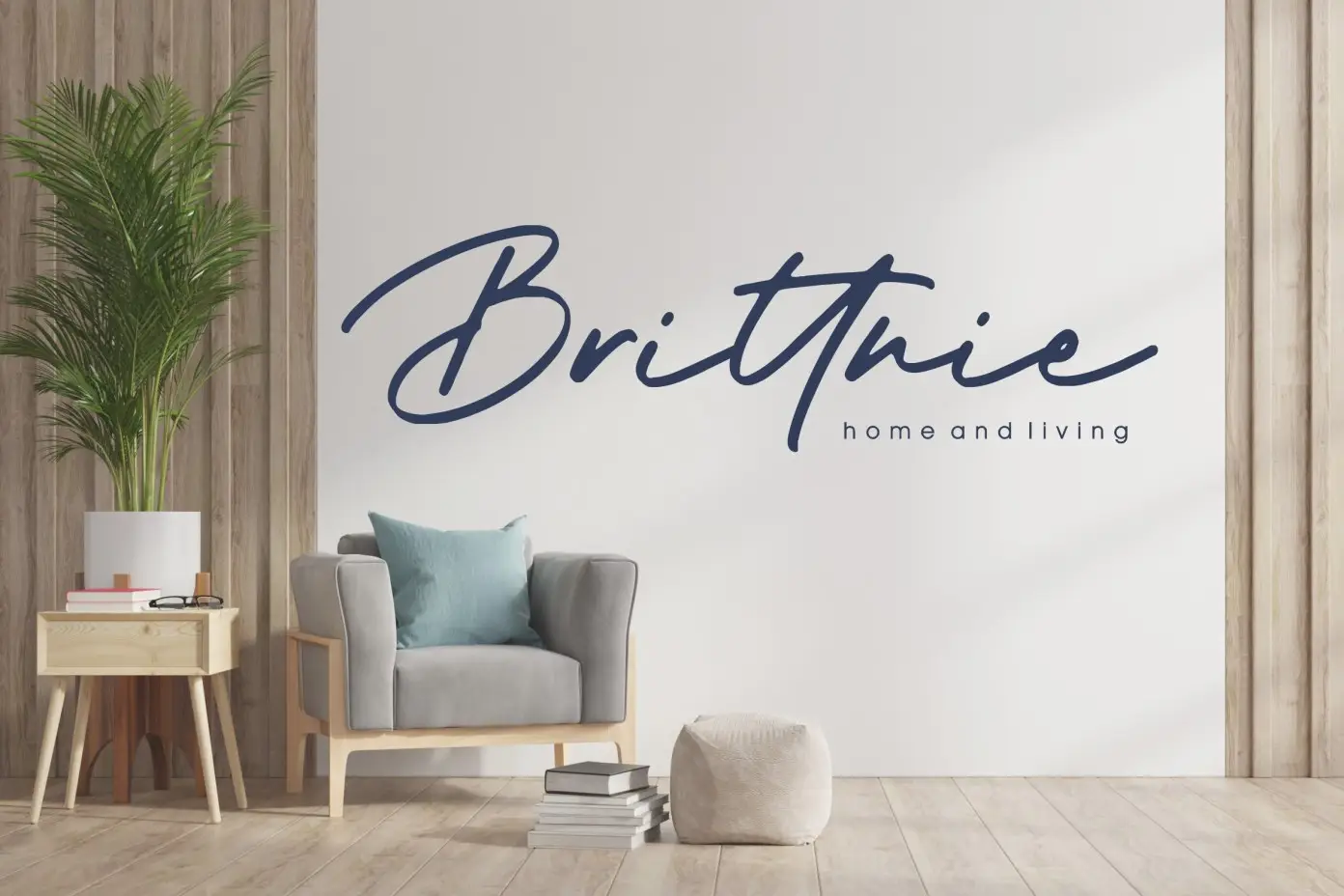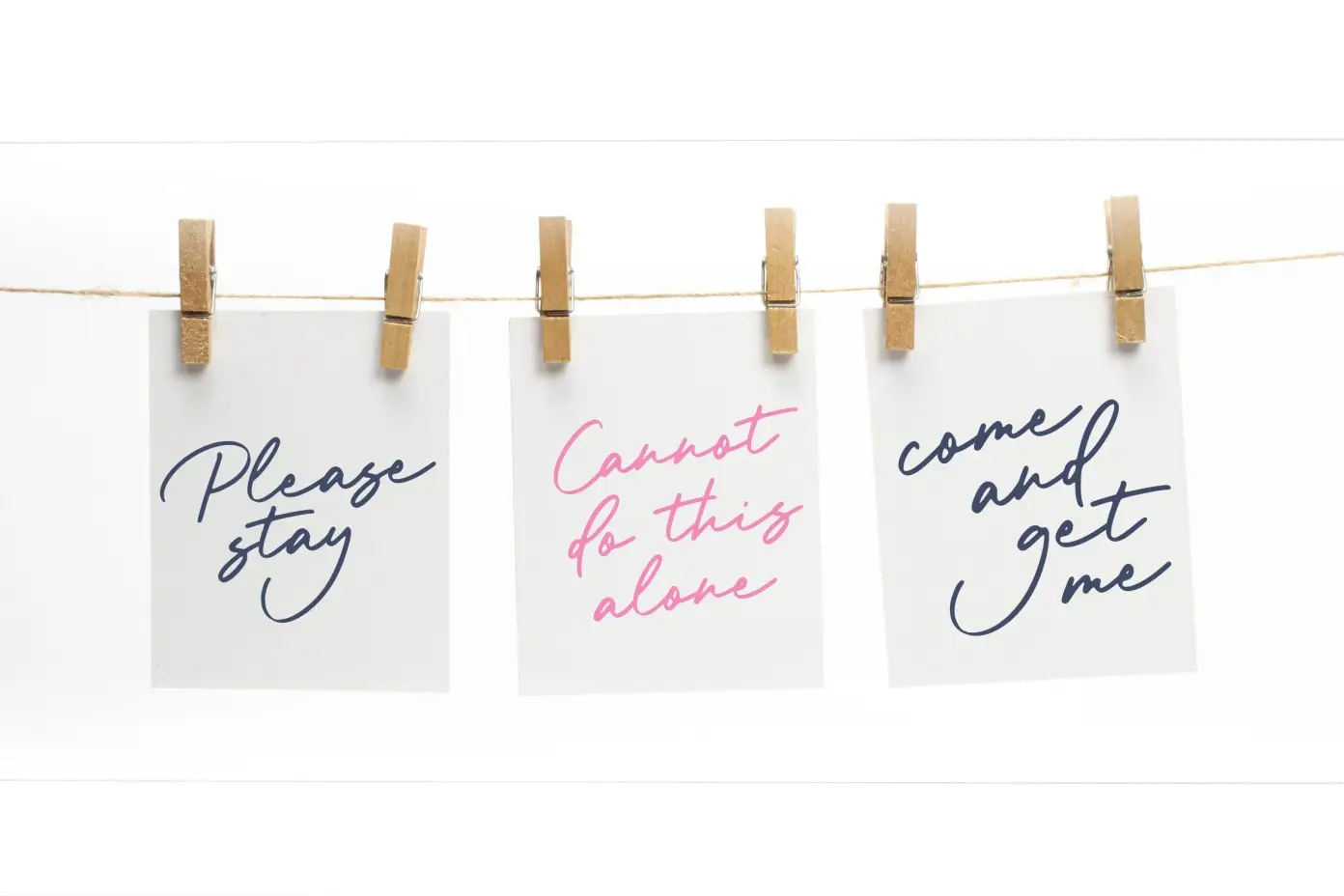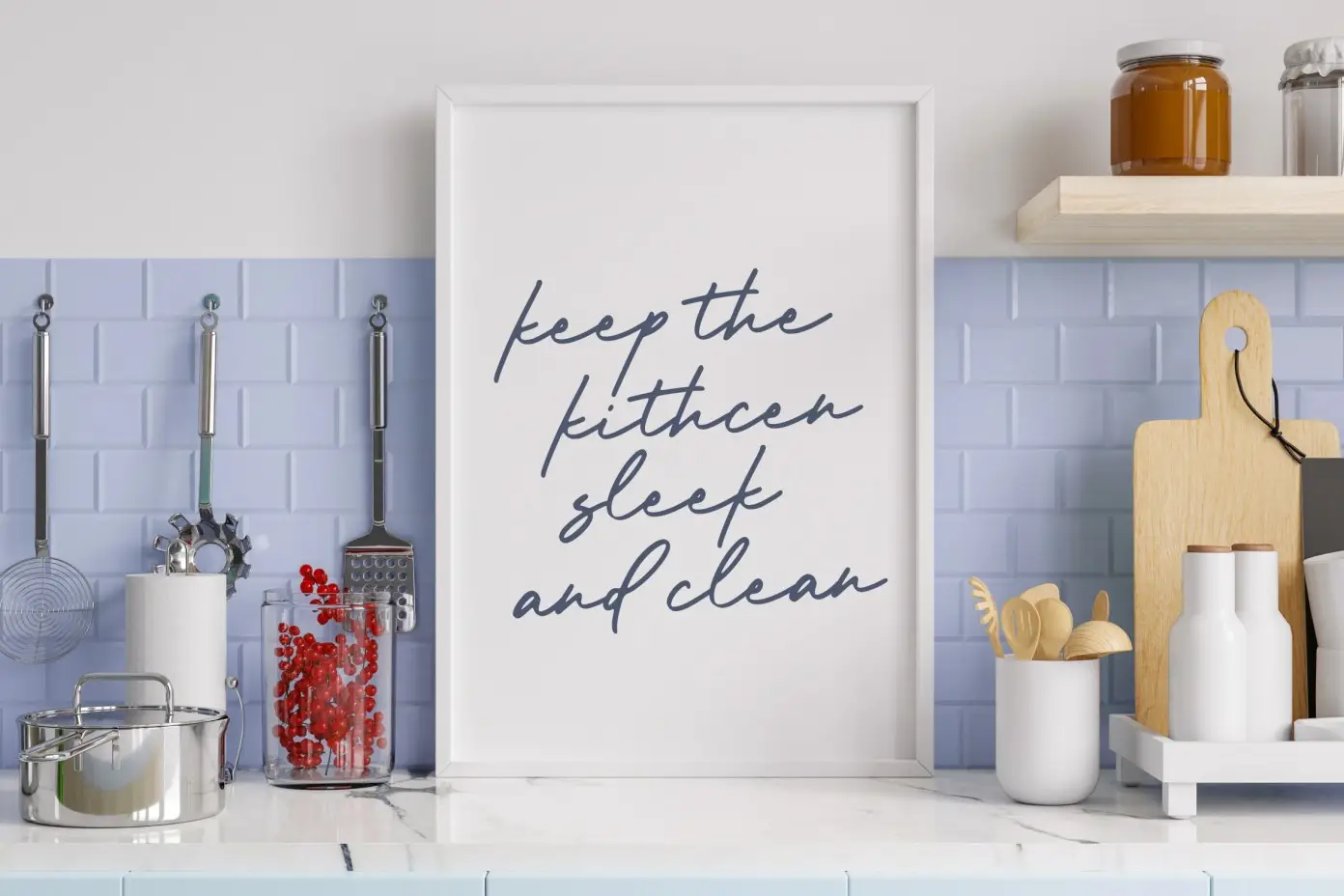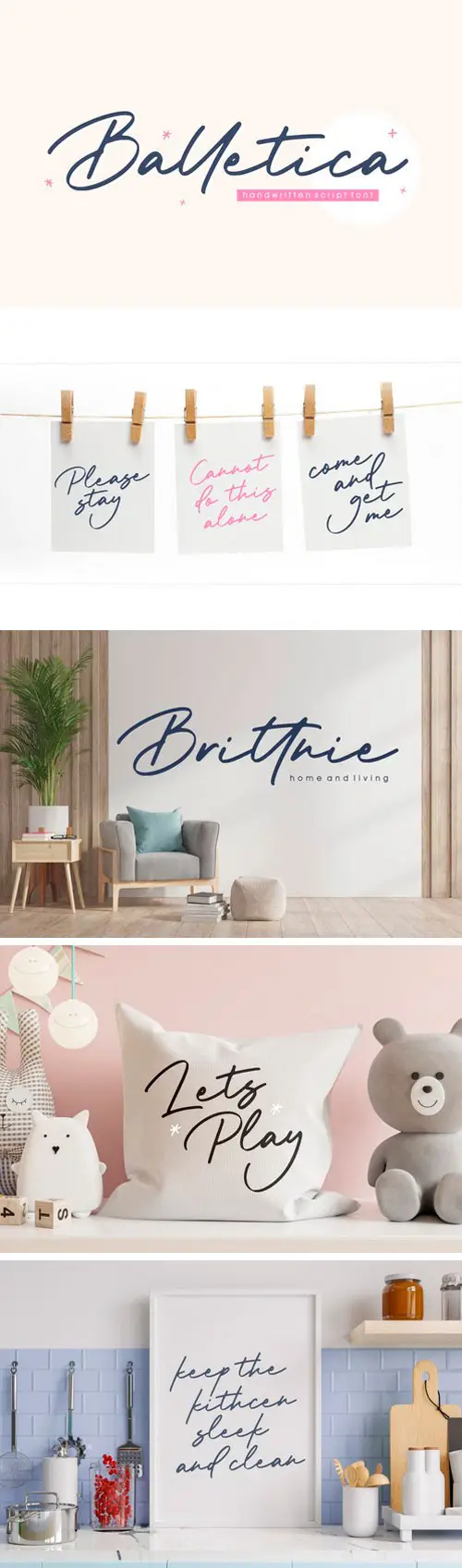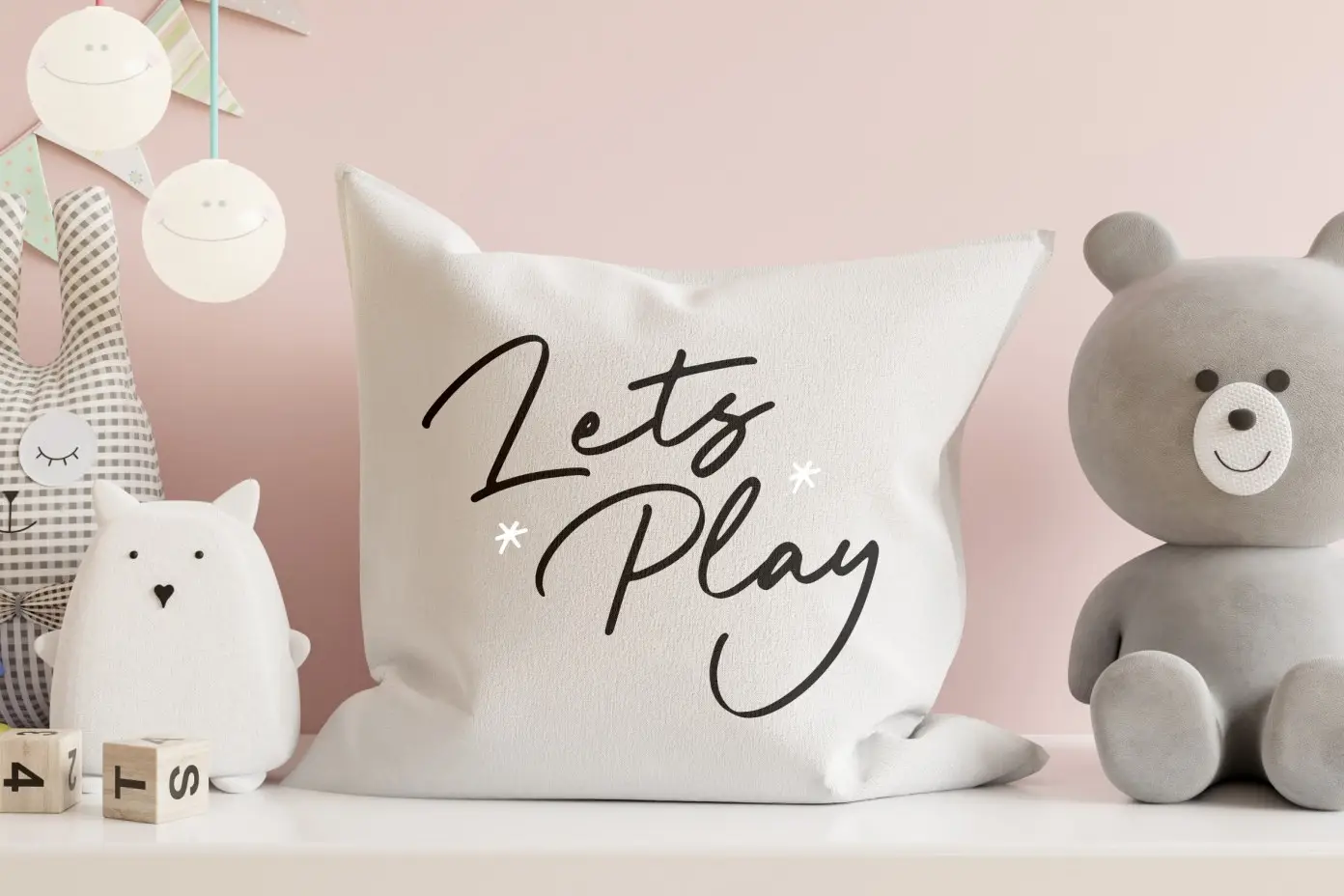
Balletica Handwritten Font
Balletica Handwritten Font is a beautifully crafted typeface that captures the elegance and fluidity of handwritten text. Perfect for adding a personal touch to your projects, this font features a unique blend of artistic flair and readability.
• Styles: Handwritten
• Weights: Regular
• Ideal for branding, logos, and promotional materials.
• Great for web design, invitations, and greeting cards.
• Use in UI design to create a friendly and approachable aesthetic.